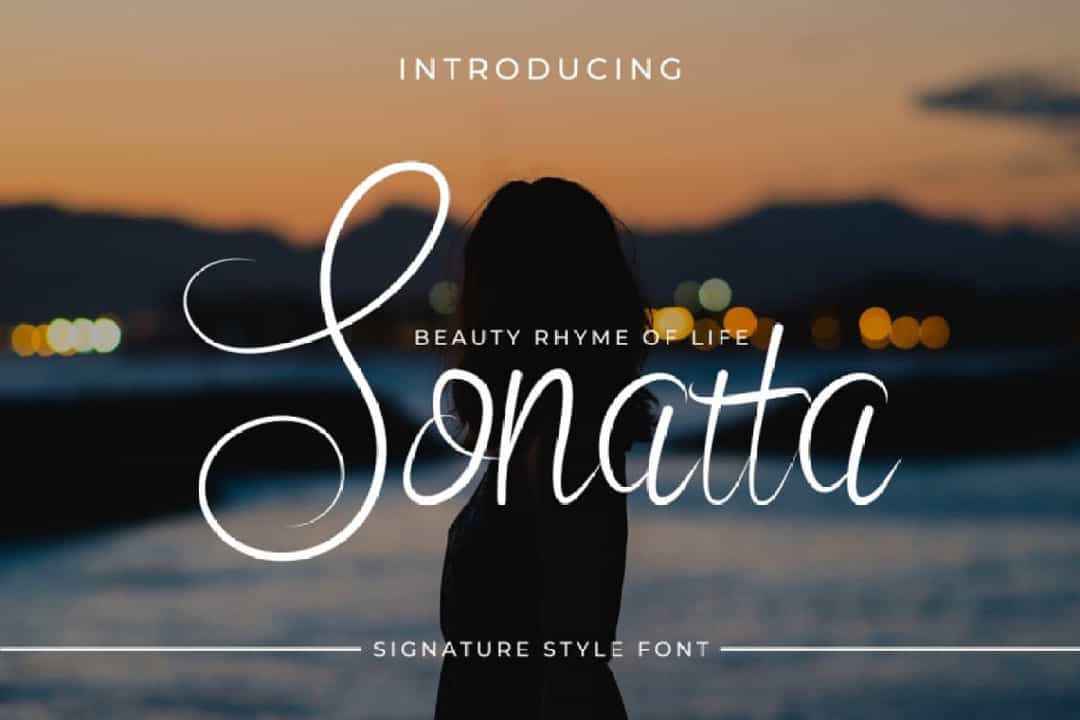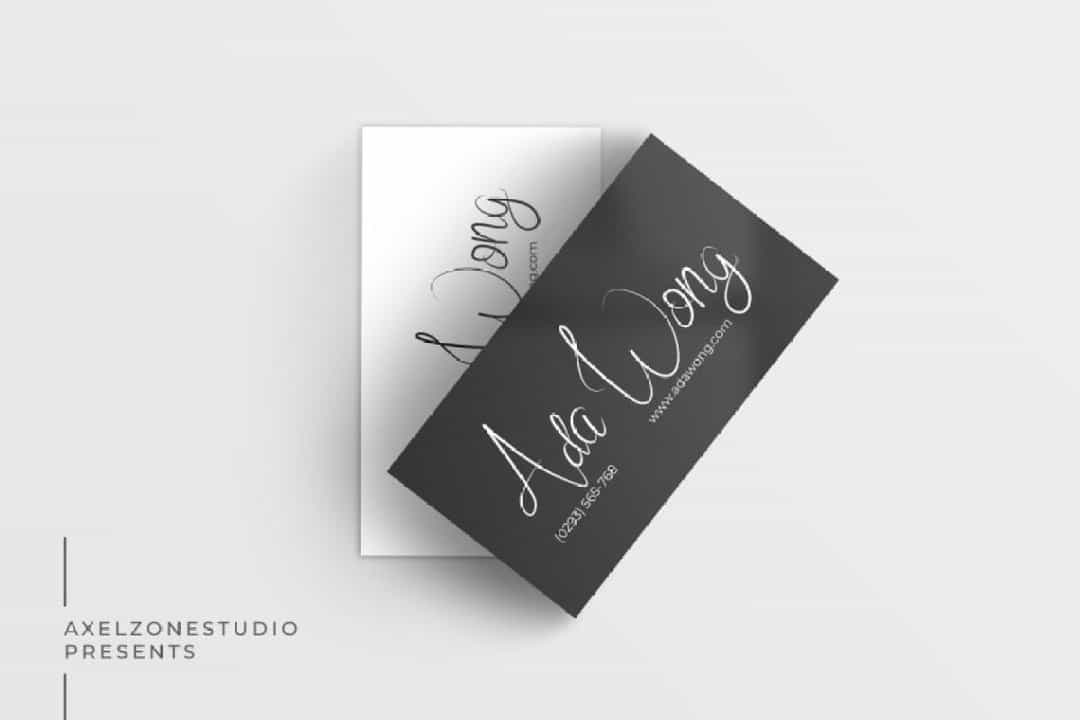
Sonatta is a script calligraphy typeface that is designed to provide a looking of style and class. This font is sleek and has a delicate and rather female look but still retain a friendly and informal style with nice swashes that make it attractive. There are numerous uses of Sonatta.